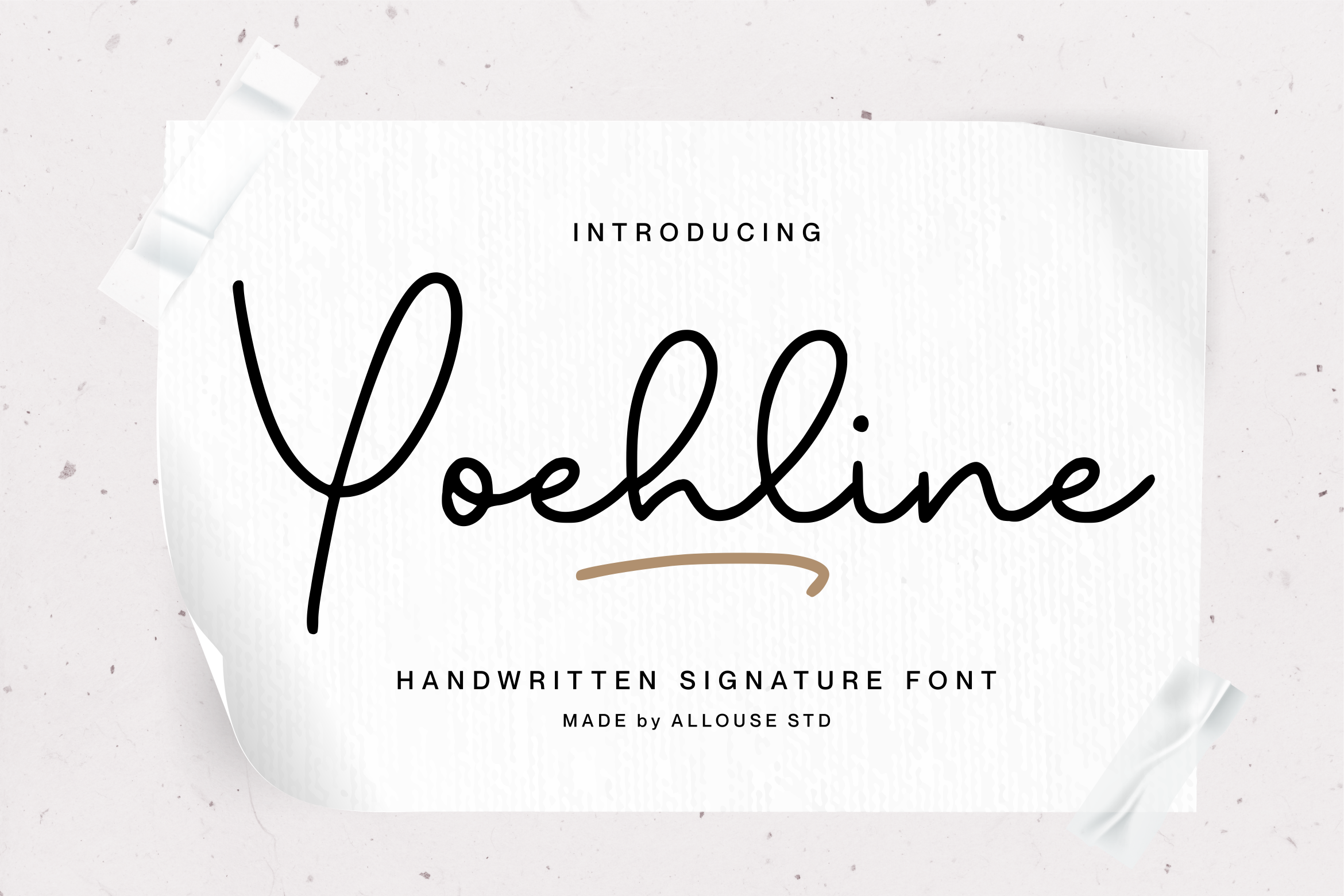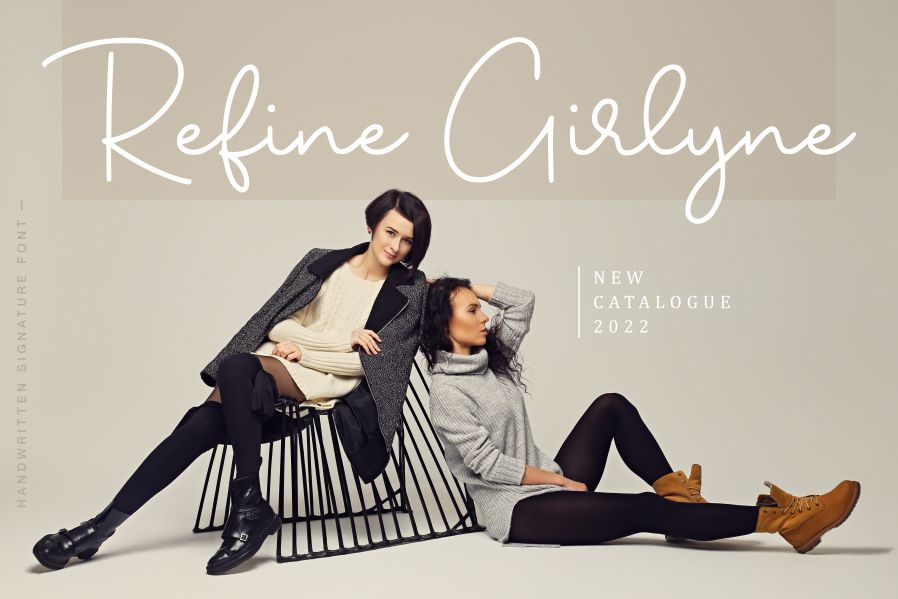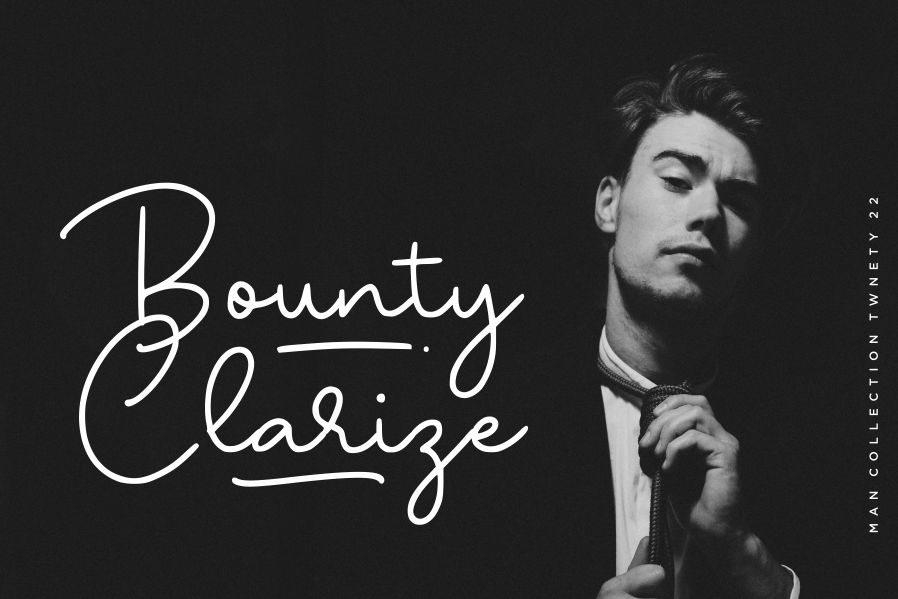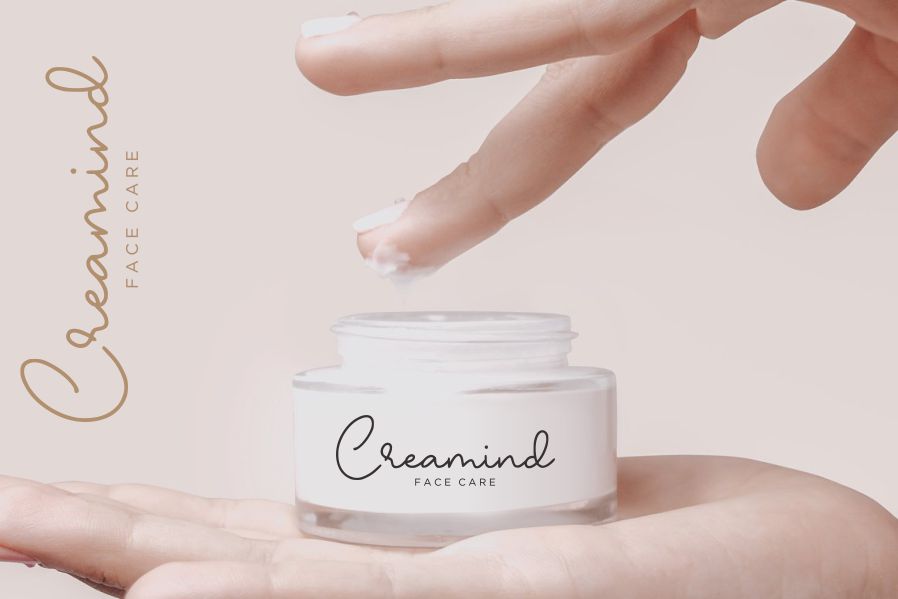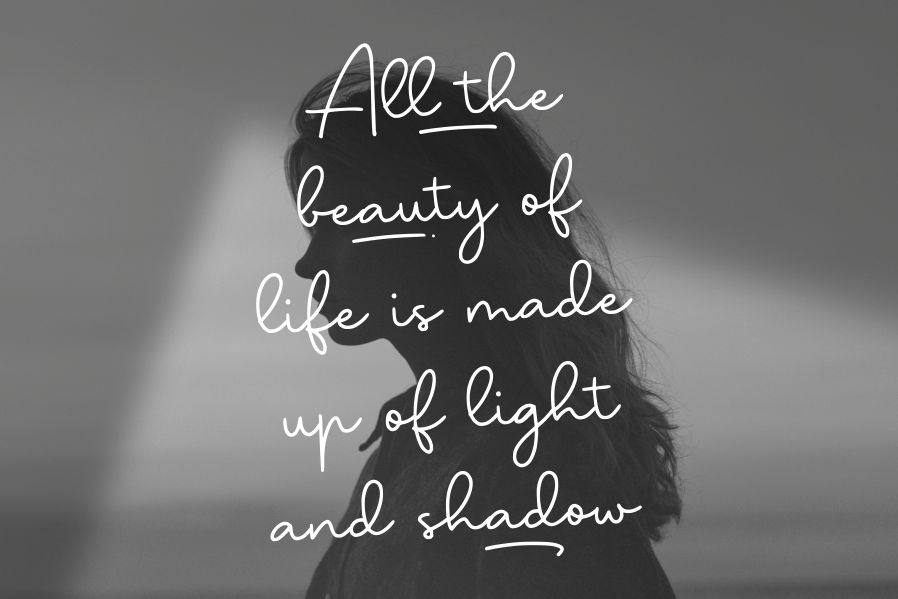
Yoehline Font
Yoehline Handwritten Font
It’s A Handwritten Siganture Font. Yoehline is perfect for product packaging, branding project, megazine, social media, wedding, or just used to express words above the background. This font includes OTF&TTF&Woff, Yoehline also multilingual support.